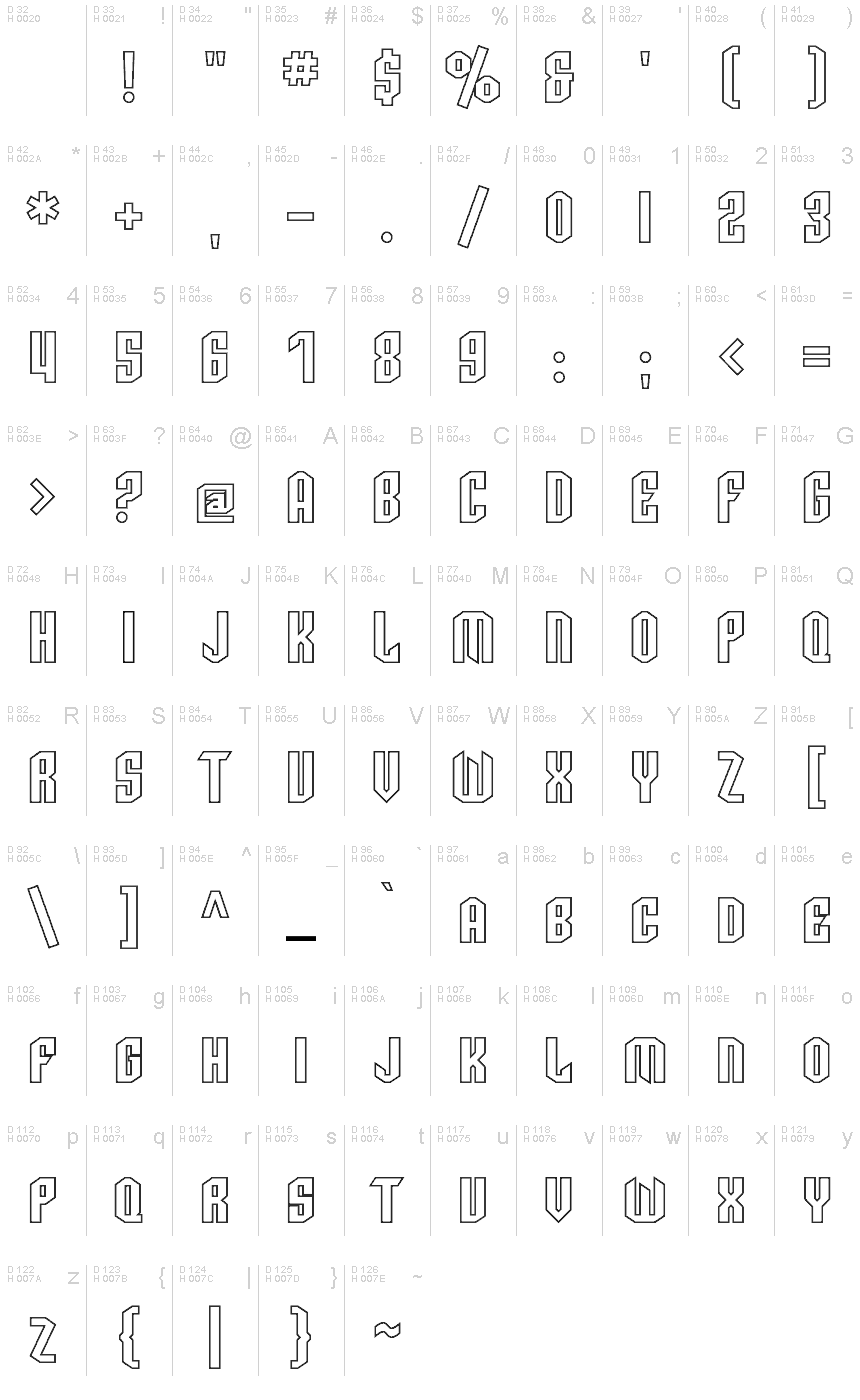
SF Archery Black SC Outline
SF Archery Black SC Outline stands as a striking testament to the creative prowess of ShyFonts Type Foundry, offering a distinctive display font with an outlined gothic flair. Its extra-condensed width carves out a space of sophistication and style, perfect for projects demanding visual impact with an air of modernity.
The precision-cut outlines and bold gothic influences merge to create an aesthetic that is both commanding and graceful. This font's clear, defined structure makes a statement without overwhelming the content, suitable for headlines, posters, branding, and more.
With its unique blend of tradition and contemporary design, SF Archery Black SC Outline is versatile enough to suit various creative endeavors while adding a touch of elegance and edginess. Whether you're crafting something avant-garde or aiming for subtlety with an edge, this font's character will undoubtedly sharpen your project's visual appeal.
The precision-cut outlines and bold gothic influences merge to create an aesthetic that is both commanding and graceful. This font's clear, defined structure makes a statement without overwhelming the content, suitable for headlines, posters, branding, and more.
With its unique blend of tradition and contemporary design, SF Archery Black SC Outline is versatile enough to suit various creative endeavors while adding a touch of elegance and edginess. Whether you're crafting something avant-garde or aiming for subtlety with an edge, this font's character will undoubtedly sharpen your project's visual appeal.